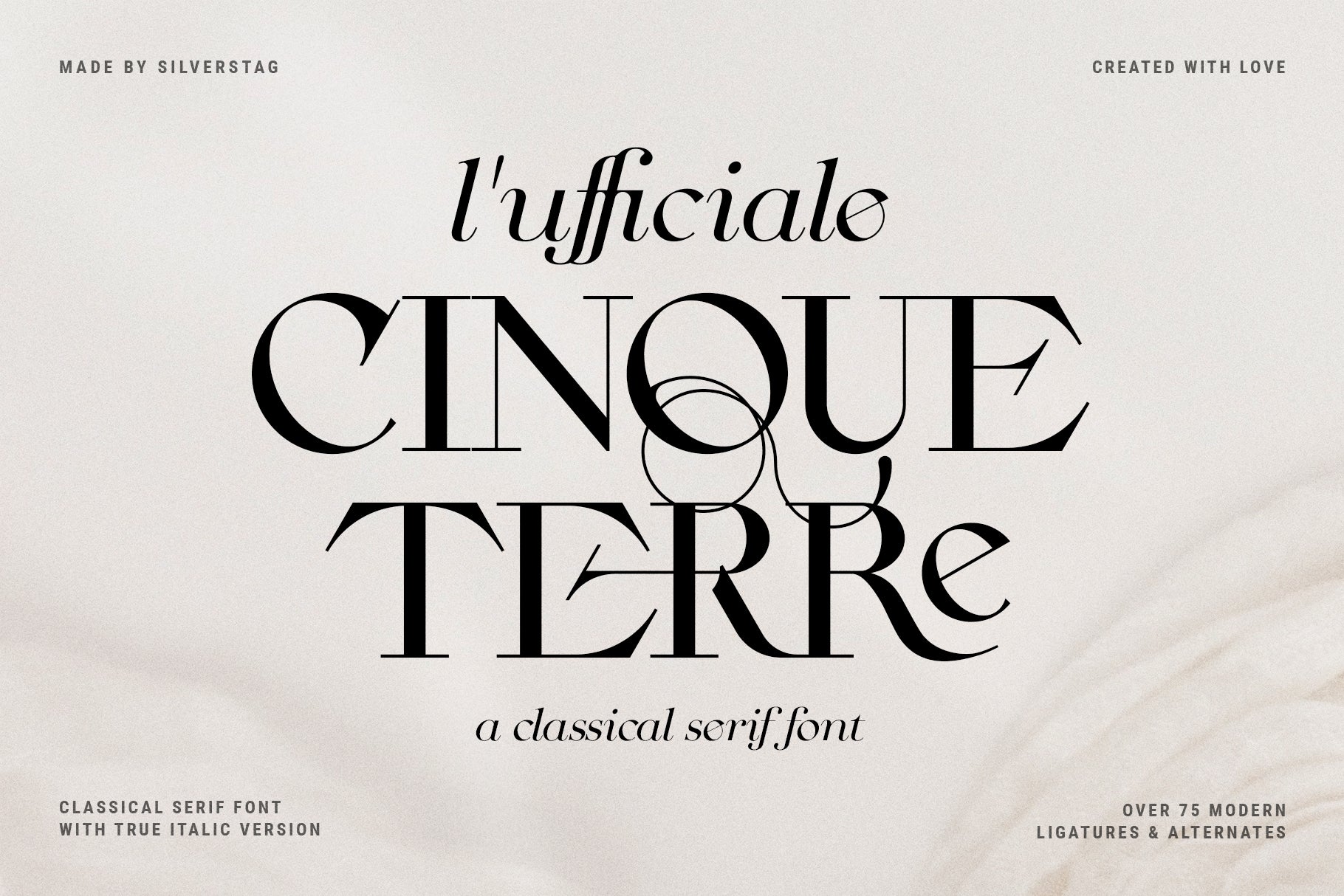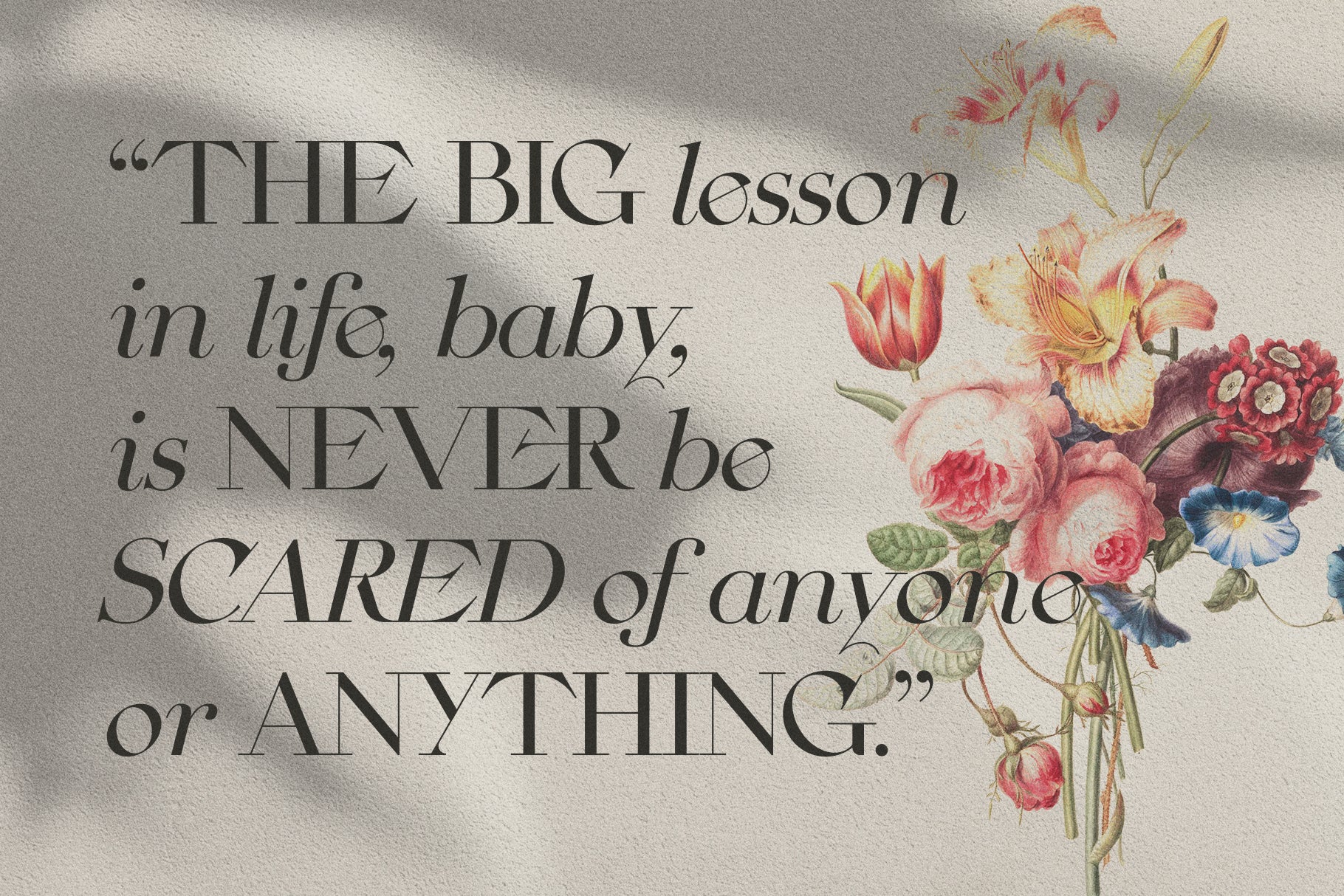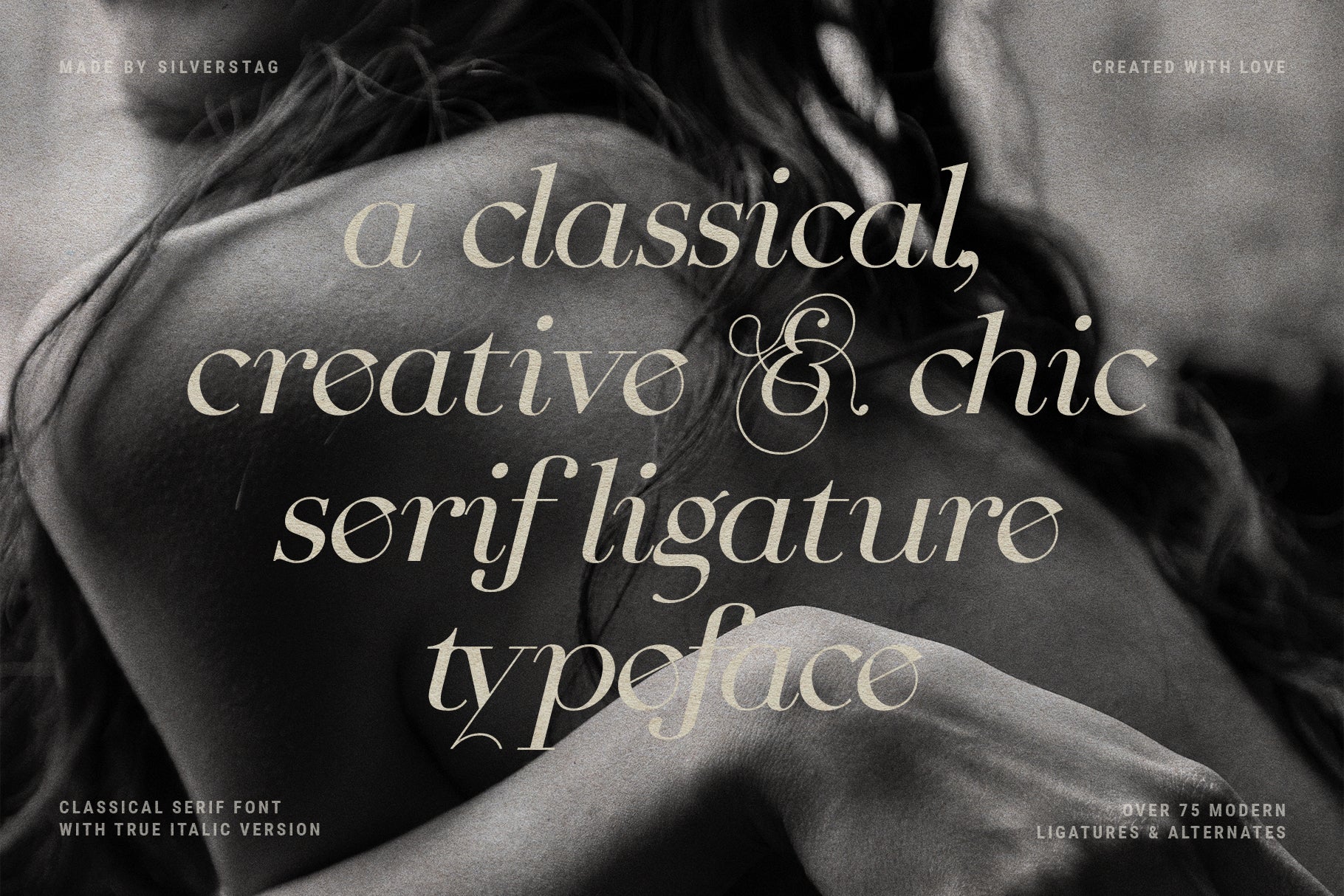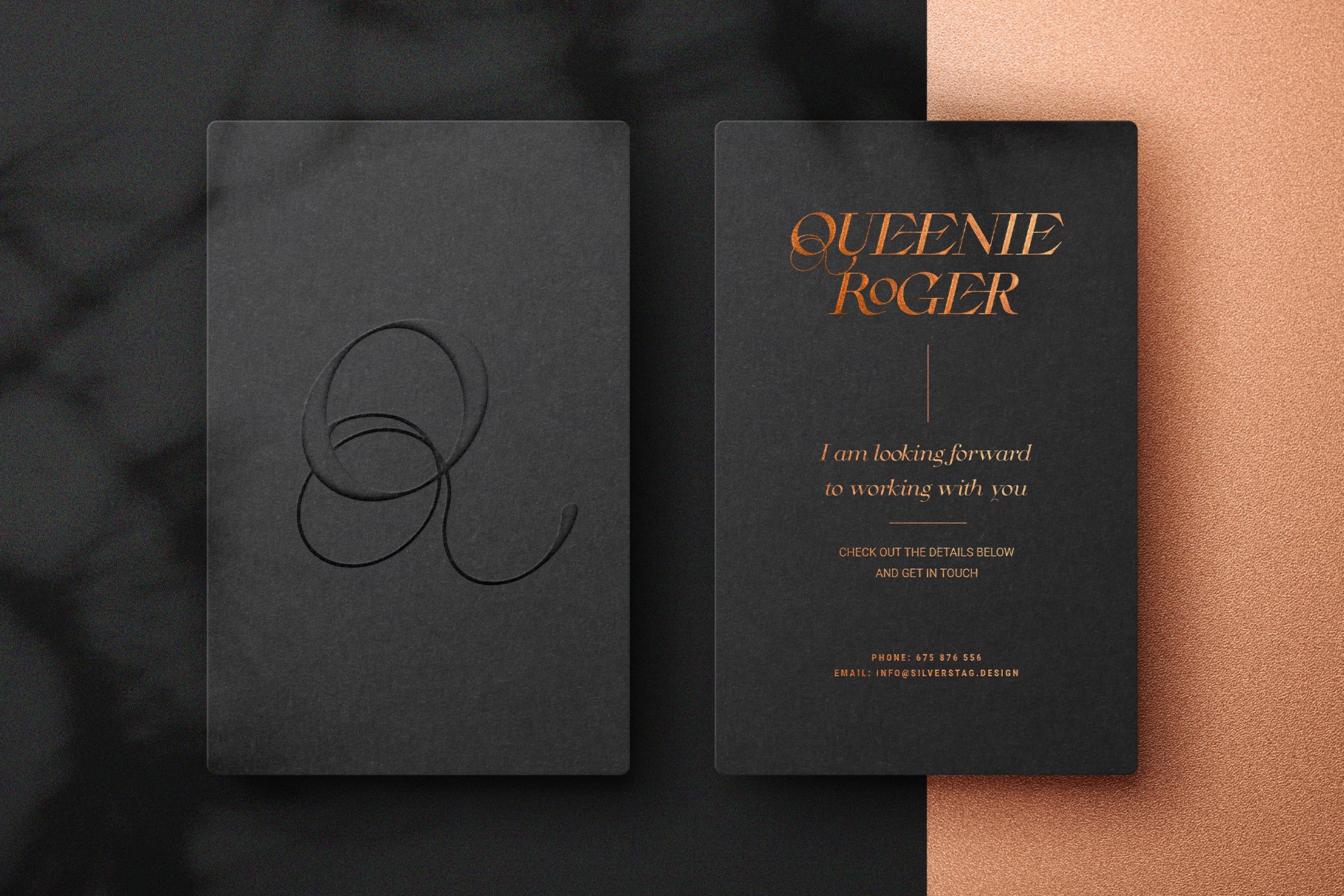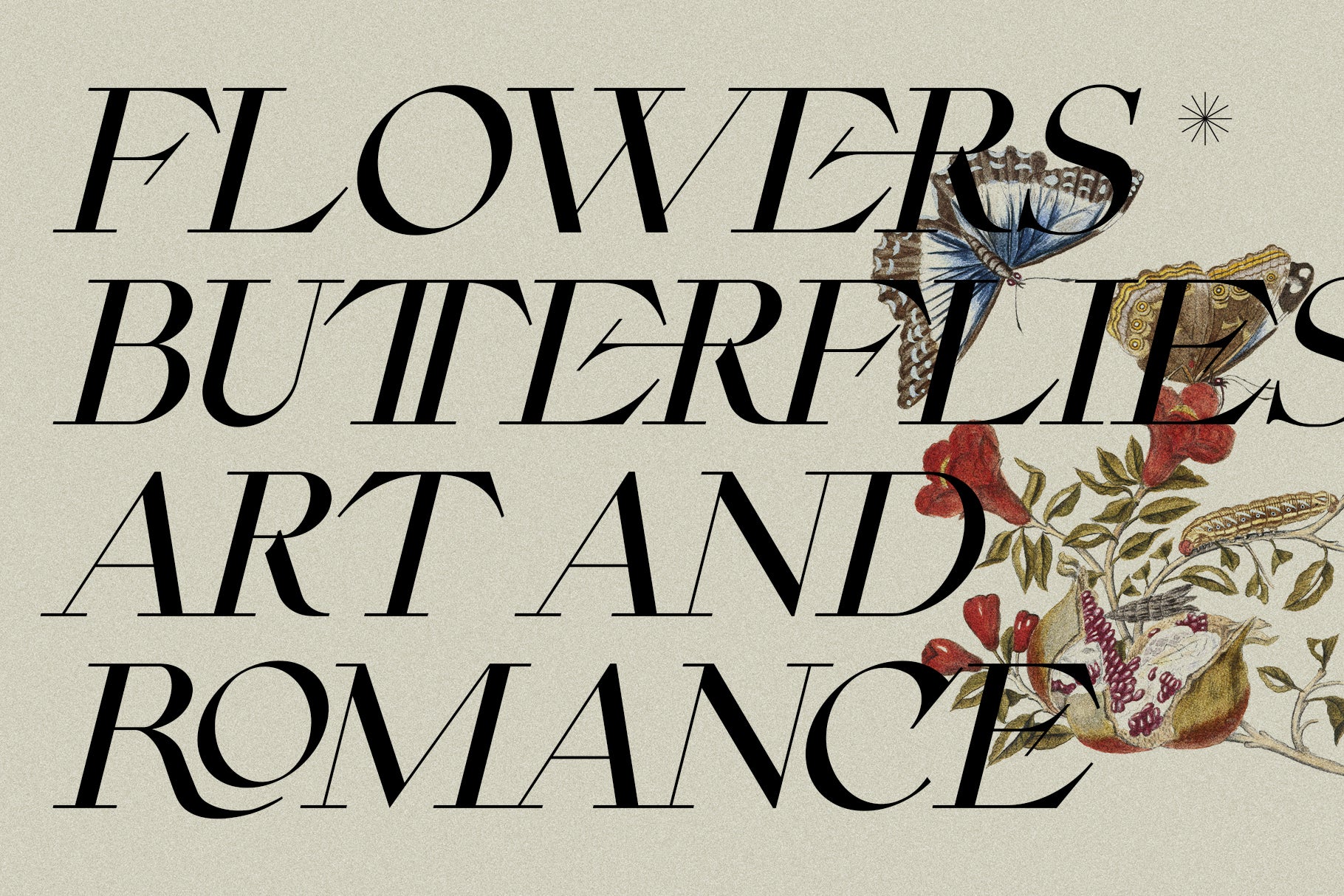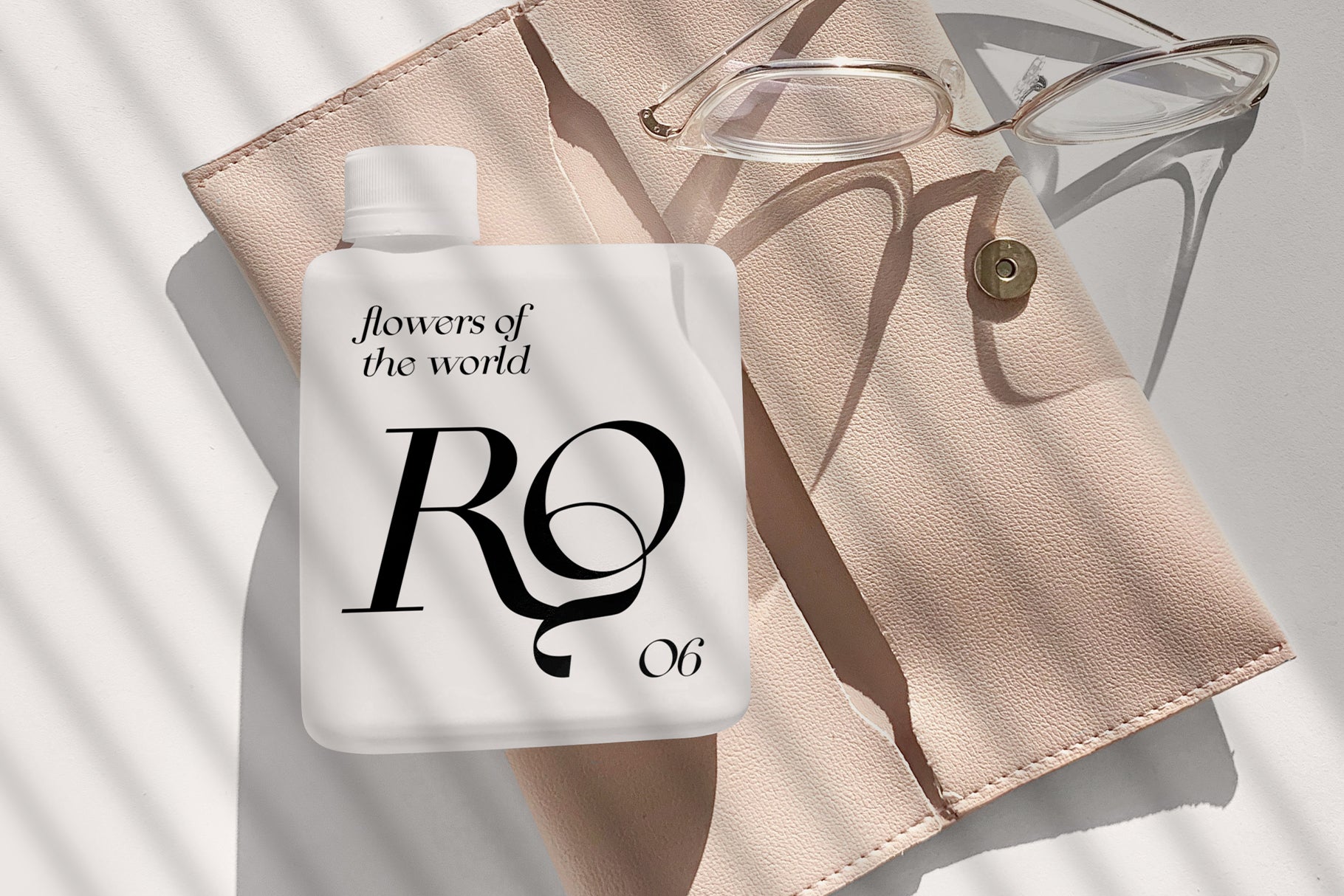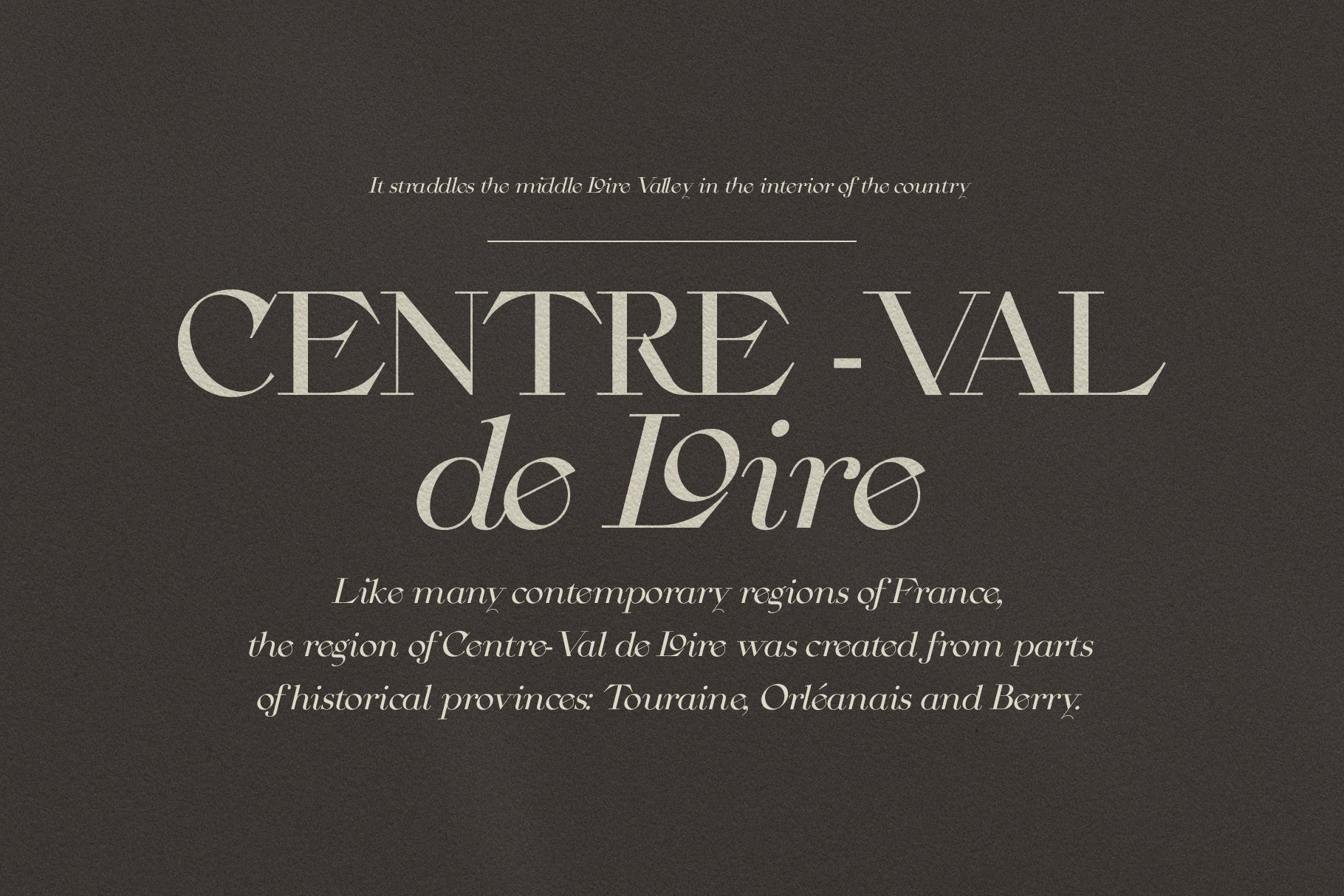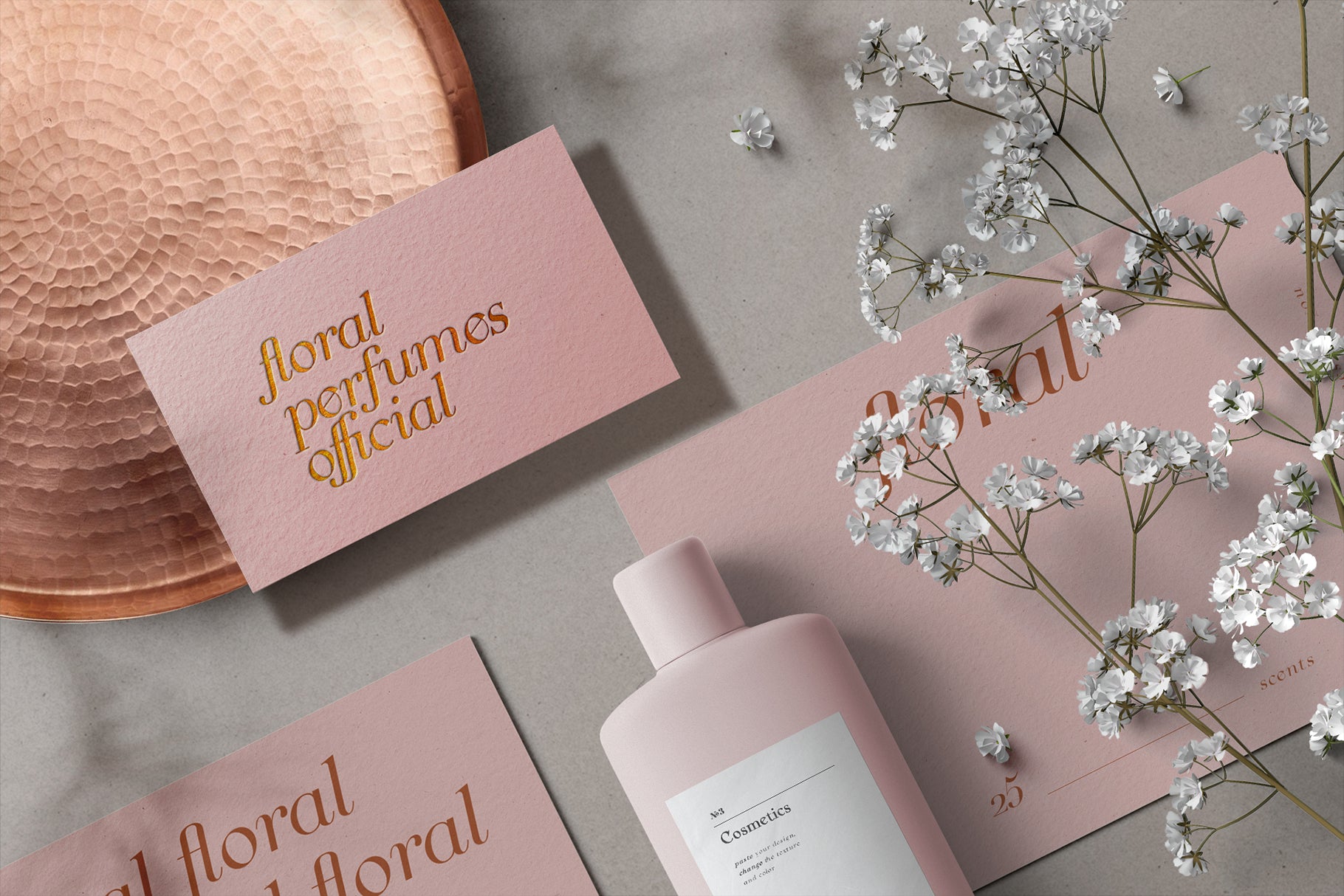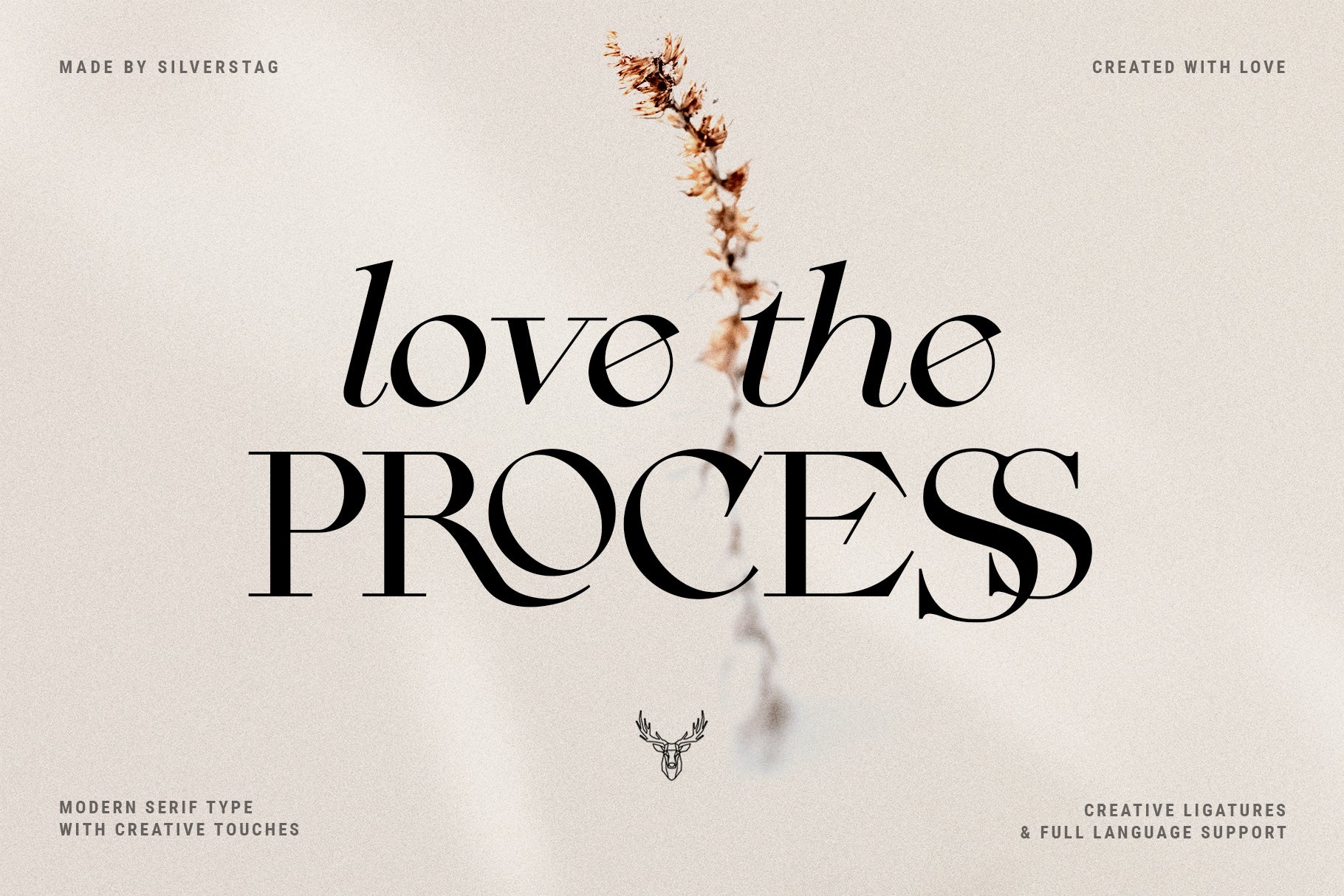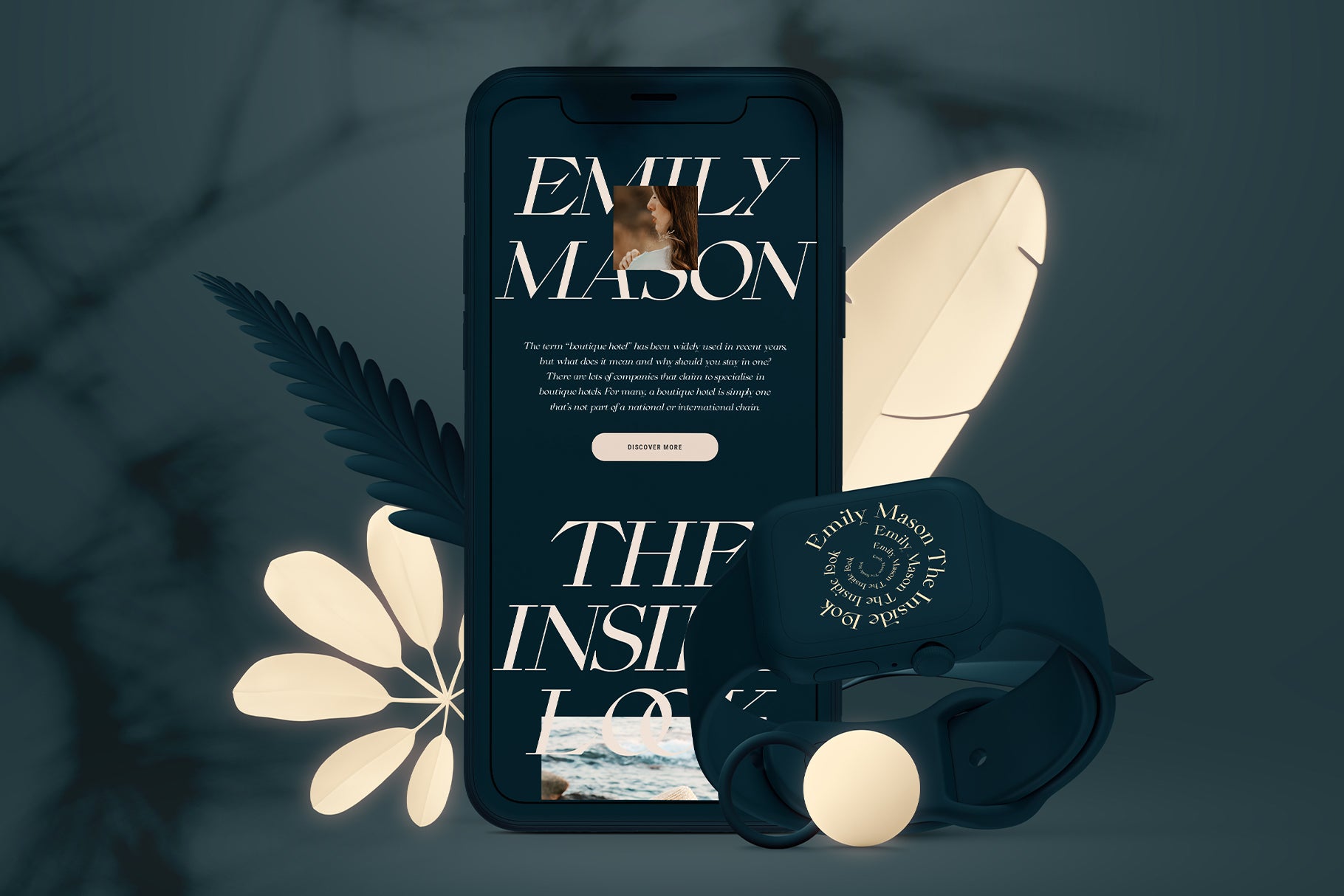
Introducing CINQUE TERRE, a timeless classical serif typeface inspired by the sun-drenched charm of Italy’s iconic coastal villages. Named after the breathtaking region of Cinque Terre—Monterosso al Mare, Vernazza, Corniglia, Manarola, and Riomaggiore—this font captures the spirit of colorful houses, sunlit cliffs, and the peaceful sway of fishing boats against the Mediterranean Sea.
This elegant serif font comes with a true italic style and over 75 carefully crafted ligatures and alternates, giving your designs both classical beauty and creative flair. Whether you’re working on luxury branding, editorial design, logos, posters, websites, or packaging, CINQUE TERRE offers the sophistication and versatility needed to elevate your projects.
Each curve, stroke, and serif has been meticulously drawn to blend traditional influences with a refined, contemporary edge, ensuring timeless appeal for any creative endeavor.
Bring a touch of Italian elegance to your next project with the effortlessly chic CINQUE TERRE serif font.